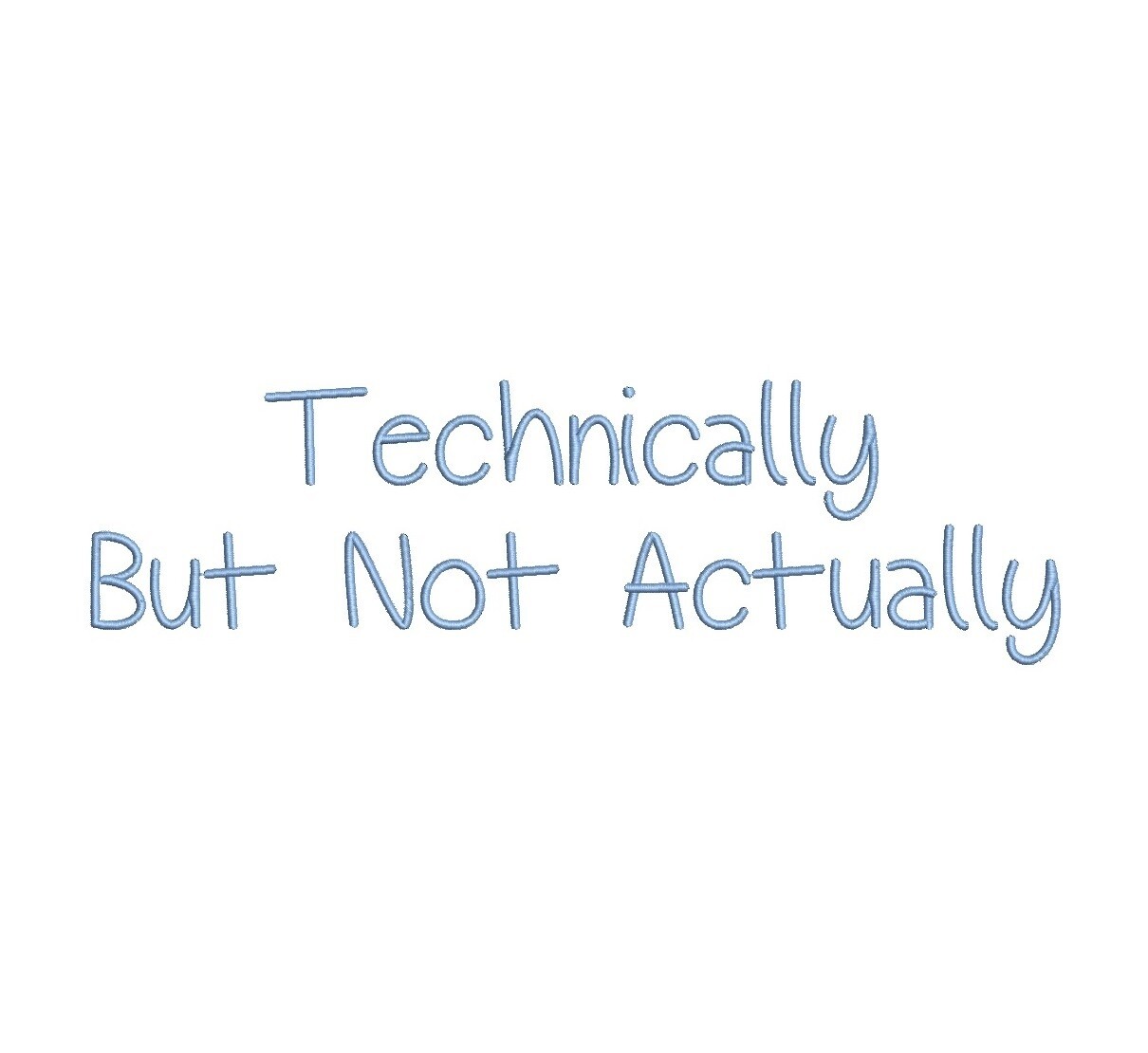
Unlock creativity with the 'Technically But Not Actually Regular ESA' font, crafted for embroidery enthusiasts seeking innovative and playful designs. This unique typeface challenges conventions, giving your creations a delightful twist. Seamlessly compatible with Wilcom Studio e4.5.6 and Hatch 3 versions and above, it effortlessly integrates into your digitizing workflow. Its clever curves and artistic strokes ensure impeccable stitch quality, elevating your embroidery projects to a level of unconventional beauty. Ideal for imaginative monograms, quotes, and decorative elements, this ESA font sparks creativity and guarantees standout results. Embrace the art of 'Technically But Not Actually Regular ESA' font today!